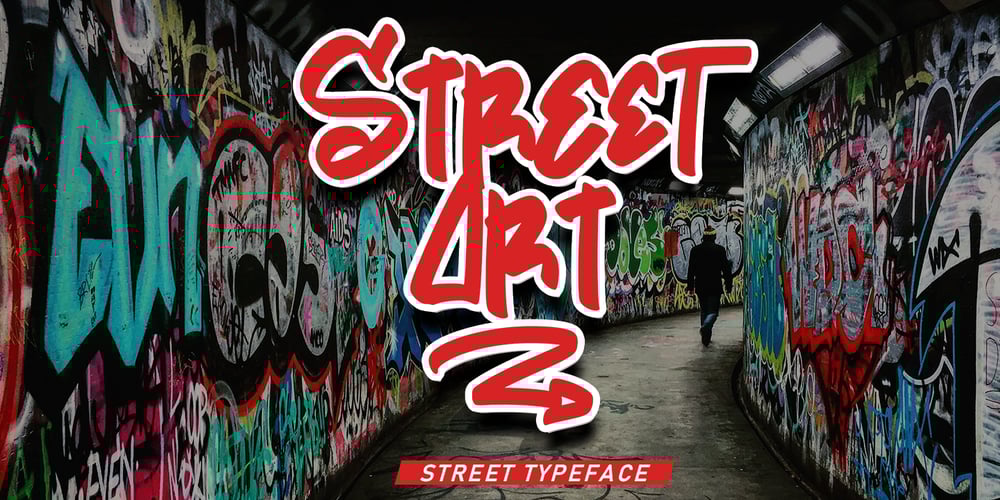
Street Art Font Family was designed by Asep Rendi and published by Arendxstudio. Street Art contains 1 styles and family package options. Street Art is a free-style font that has the characteristics of street art that shows freedom and is filled with unique characters.Features : • Character Set A-Z • Numerals & Punctuations (OpenType Standard) • Accents (Multilingual characters) • Ligatures • AlternatesThere it is! I really hope you enjoy it.